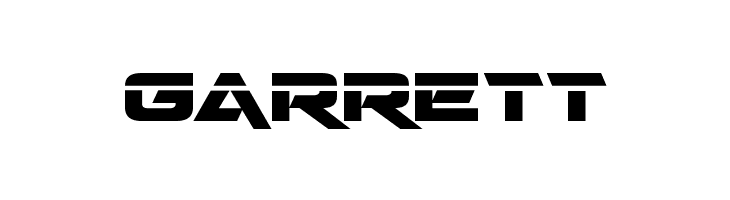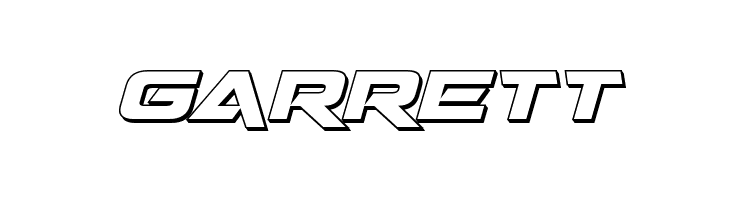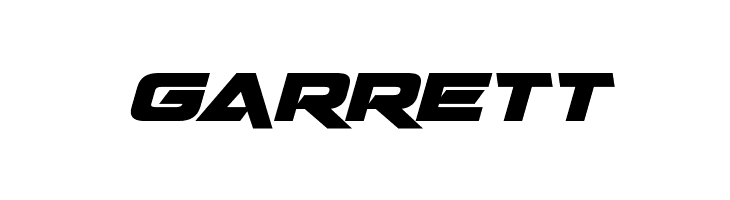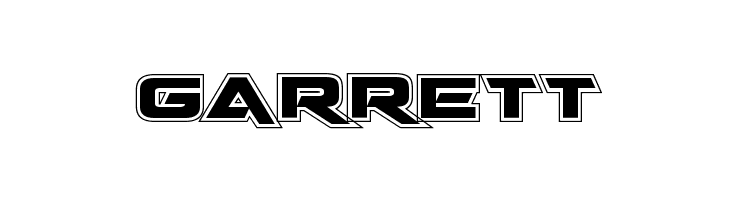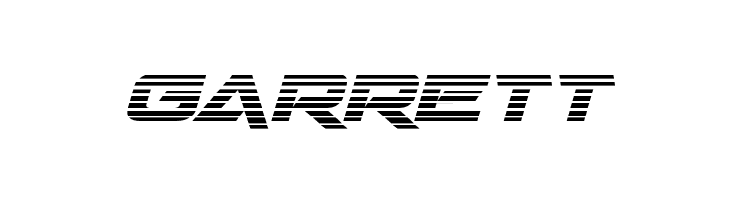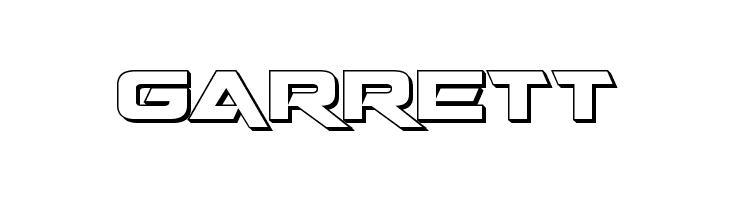
• Quark Storm 3D Italic
A dynamic 3D italic font with a futuristic and bold design.
• Quark Storm 3D Regular
A bold, futuristic 3D font with sharp angles and geometric shapes.
• Quark Storm Academy Italic
A bold, italicized font with a futuristic and dynamic design.
• Quark Storm Academy Regular
A bold, futuristic font with geometric and angular design elements.
• Quark Storm Bold
A bold, futuristic font with sharp angles and geometric shapes.
• Quark Storm Bold Italic
• Quark Storm Condensed
A bold, futuristic font with angular, geometric characters and a condensed width.
• Quark Storm Condensed Italic
A bold, condensed, and italic font with a futuristic and dynamic style.
• Quark Storm Expanded
A bold, futuristic font with expanded width and angular, geometric characters.
• Quark Storm Expanded Italic
A bold, expanded, and italicized futuristic font with sharp angles.
• Quark Storm Gradient Italic
A futuristic, italic font with gradient line effects and sharp angles.
• Quark Storm Gradient Regular
A futuristic, bold font with a dynamic horizontal line pattern.
• Quark Storm Italic
• Quark Storm Laser Italic
A bold, italic, futuristic font with sharp, angular edges and a dynamic style.
• Quark Storm Laser Regular
A futuristic, bold font with geometric shapes and sharp angles.
• Quark Storm Leftalic
A bold, futuristic font with a leftward slant and angular design.
• Quark Storm Regular
A bold, futuristic font with sharp, angular edges and a strong geometric structure.